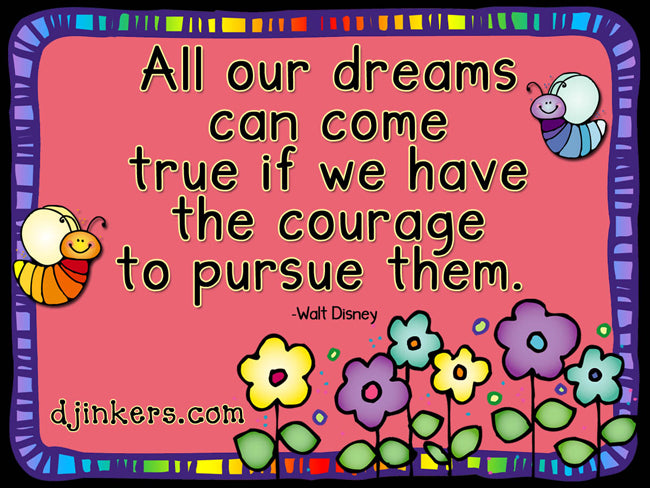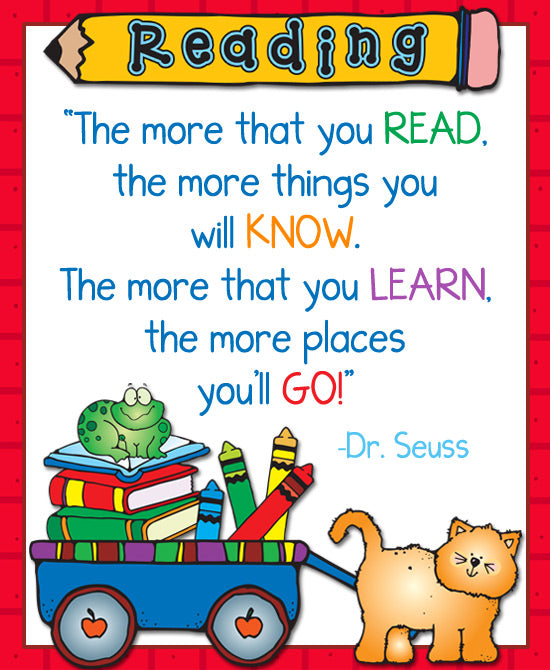
The hand written lettering makes a great basic font by DJ Inkers
DJ Basic Font Download
The hand written lettering makes a great basic font by DJ Inkers
DJ Basic Font Download
Looking for a good, easy to read font that still has personality? DJ Inkers has just what you need to type-up the basics with a smile. DJ Basic is great for newsletters, hand-outs, notes home, instructions, bulk text or creative projects of any kind. You'll love this cute & simple lettering by Dianne J Hook.